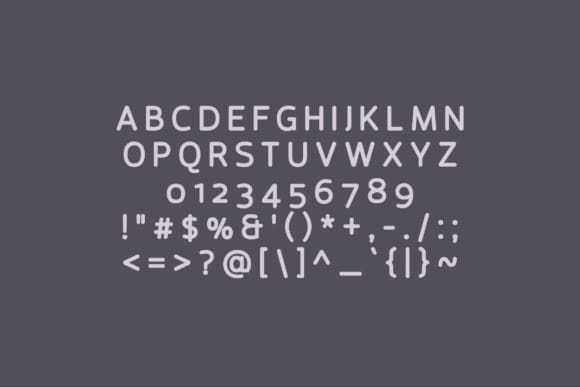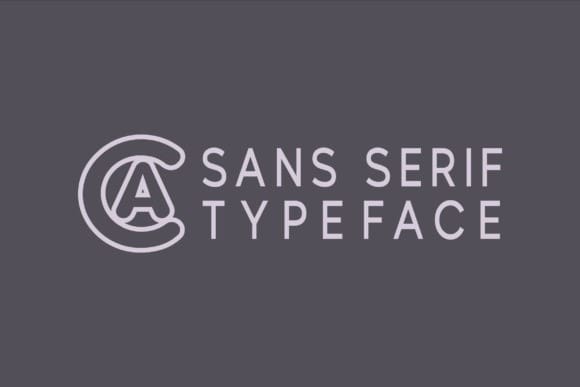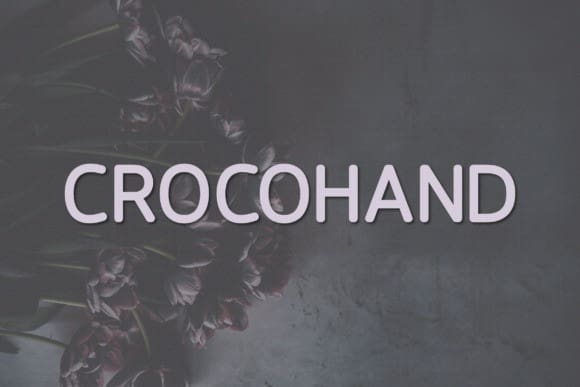
Crocohand Font
Crocohand Font, a modern, classy sans serif typeface. A sans serif typeface that contains upper characters, number 0-9 and a range of punctuation and symbols. An extremely versatile font, perfect for logos, weddings, invitations, quotes, advertisements, print, magazines, and more!